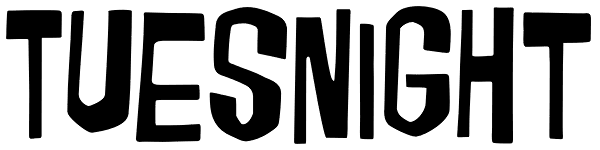
Tuesnight
Tuesnight feels like party! Inspired by movie posters from the sixties but with a quite contemporary accent, this is a lively face, packed with lots of alternates and interlocking pairs. There are also swashes to this side, swashes to that side...